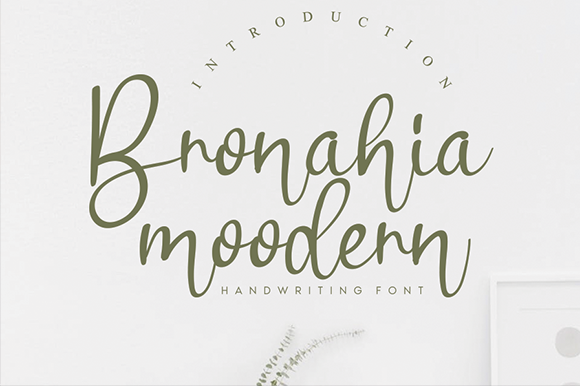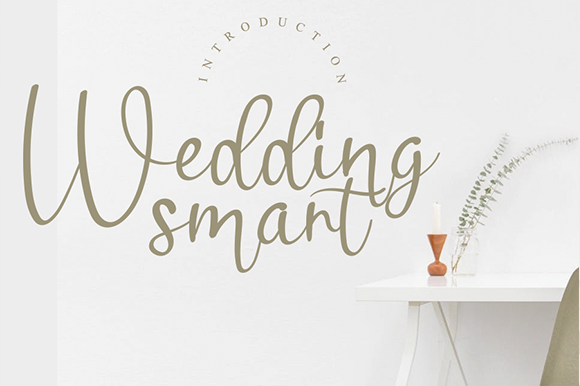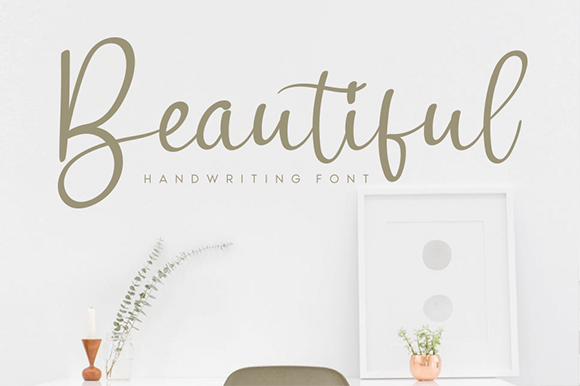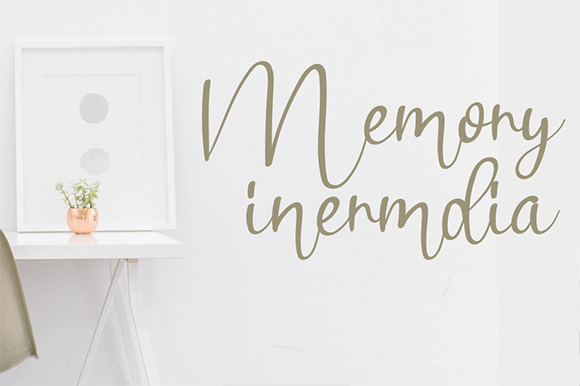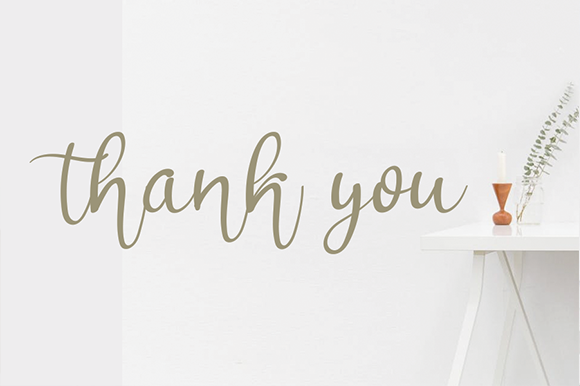
Bronahia Font
About Bronahia Font
Bronahia is a unique, round lettered handwritten font. Masterfully designed to become a true favorite, Bronahia maintains its classy calligraphic influences while feeling contemporary and fresh. Fall in love with this font and bring your projects to the highest levels!